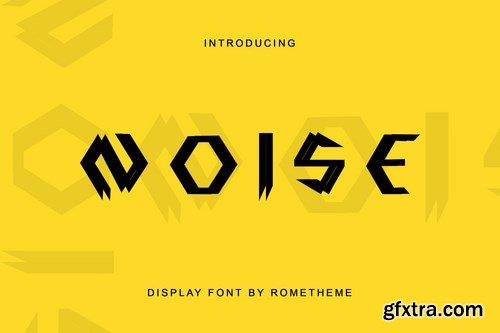
NOISE is a display font with elegant in every single letter. This font looks modern, cool, readable, stylish, catchy and easy to use.
NOISE Font is the best choice for your professional design projects, including : logo, poster design, t-shirt, headline, flyer, cd cover album, quotes, business card, branding, magazines, social media, advertisements, product designs, or something that need modern or futuristic looks.